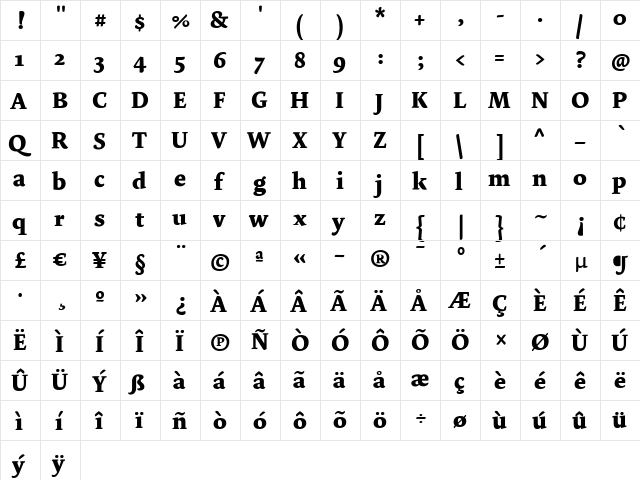
Dolly Regular Font Preview
Dolly Regular
Dolly Regular Font Details
Design Context for Dolly Typeface
Dolly offers clean, dependable letterforms without strong stylistic allegiance, making it a practical choice for designers who need flexibility.